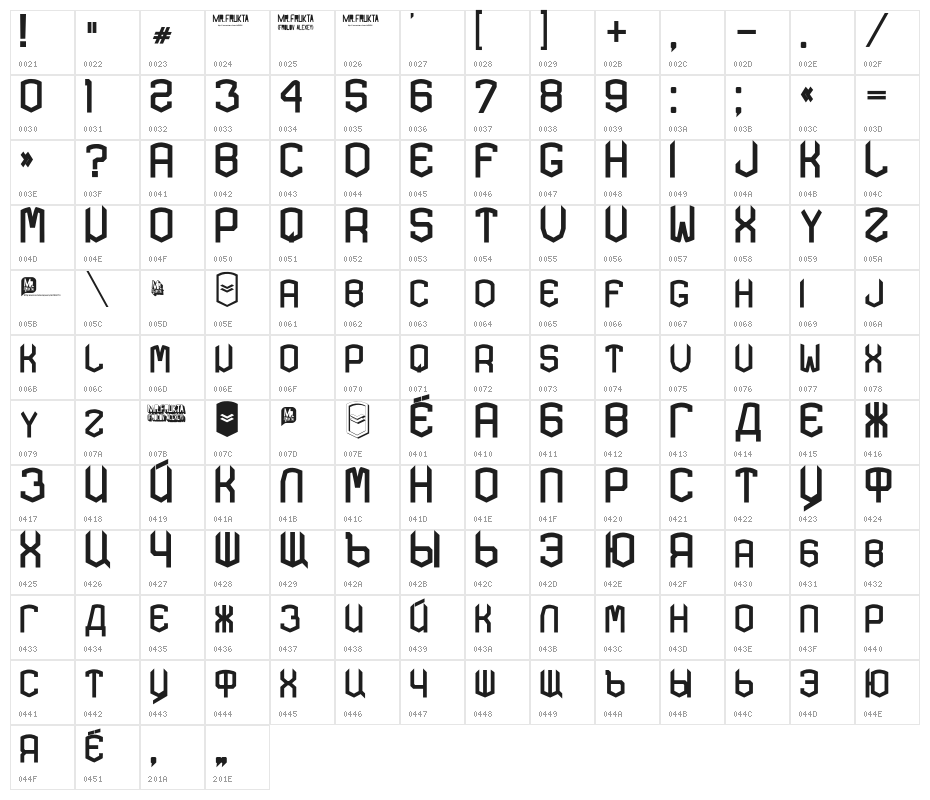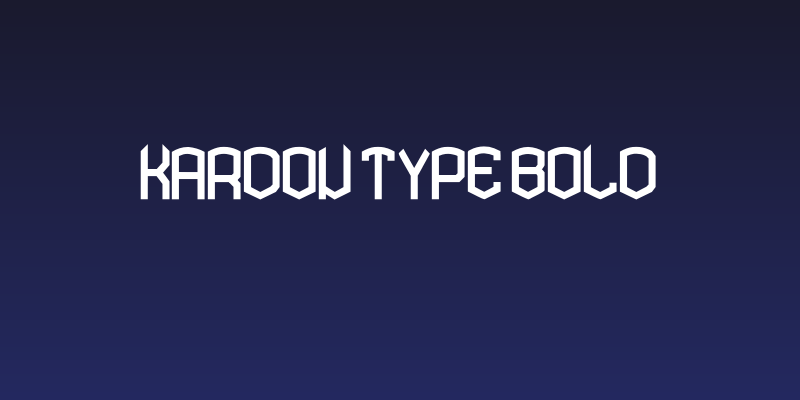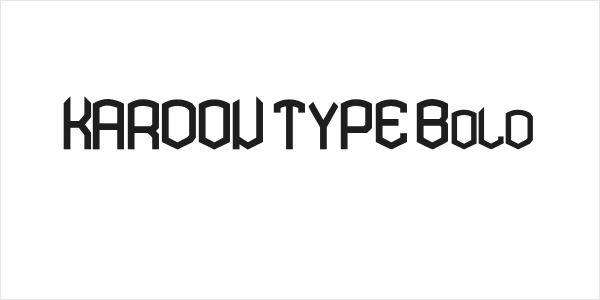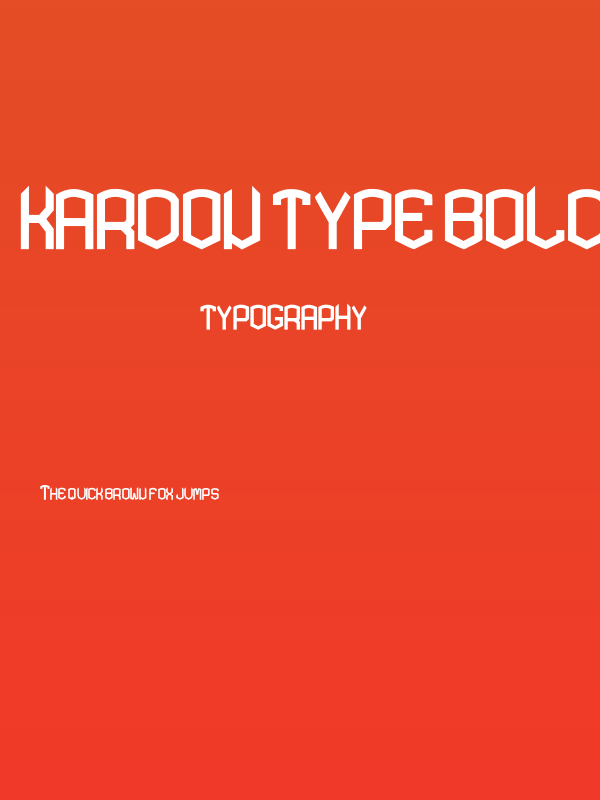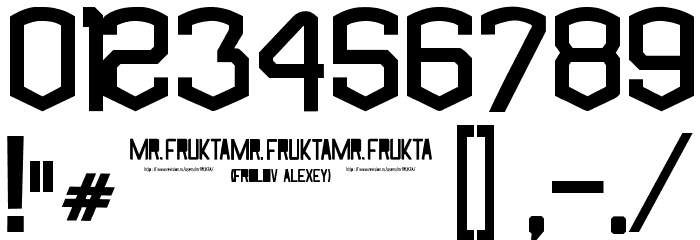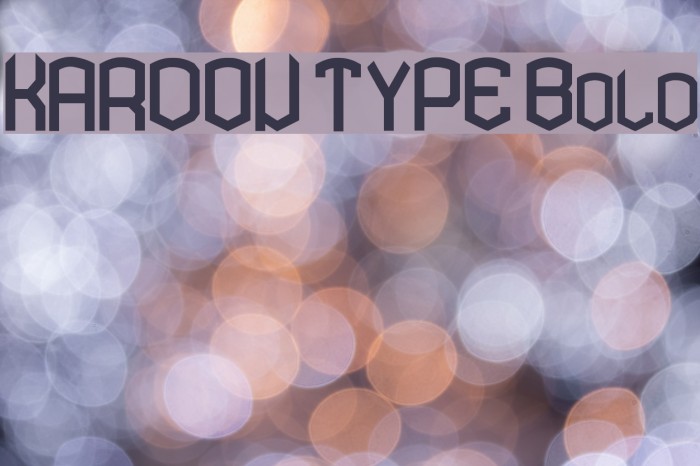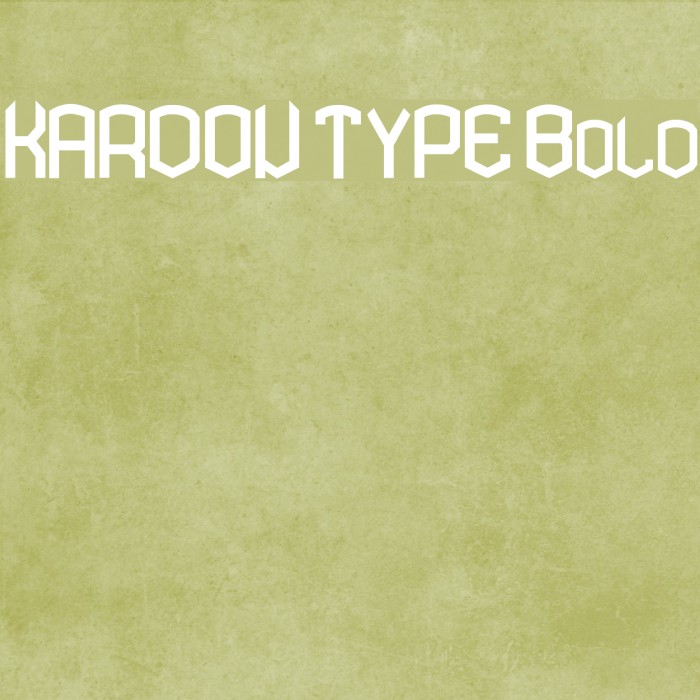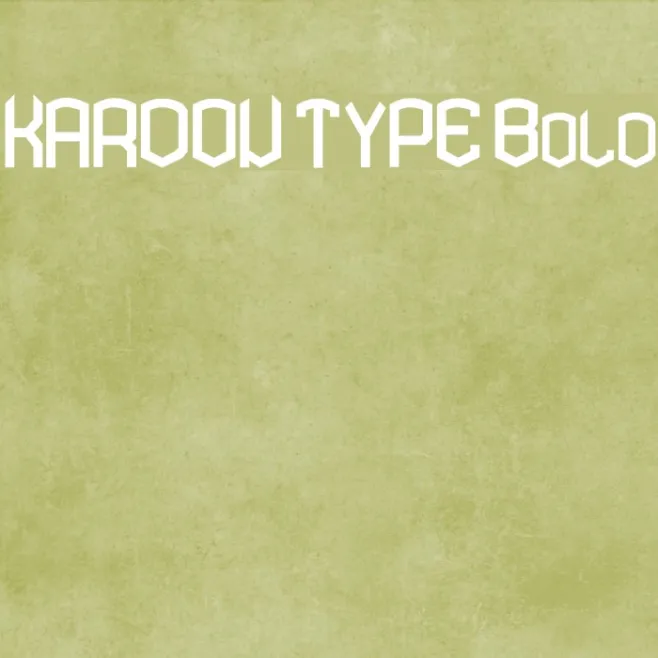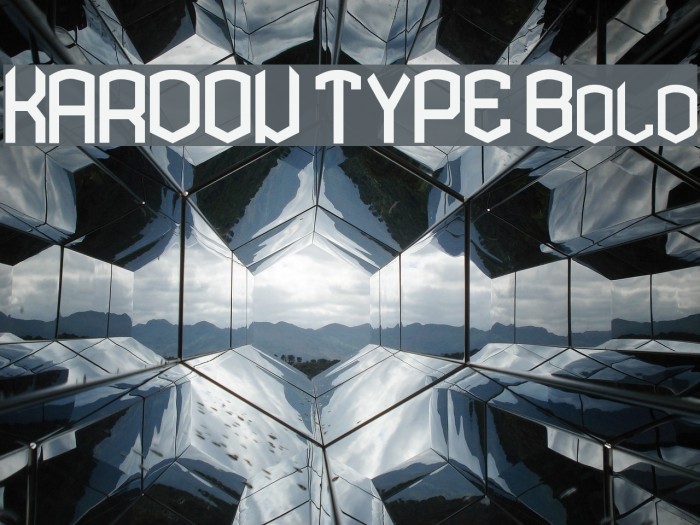
KARDON TYPE Bold Font
KARDON TYPE Bold Description
This font features a bold, geometric style with sharp angles and a strong presence. The uppercase letters are uniform in height, creating a cohesive and structured appearance. The characters are designed with a modern, industrial aesthetic, making them suitable for impactful and attention-grabbing designs. The numbers and special characters maintain the same bold and angular style, ensuring consistency across all elements. This font is ideal for projects that require a strong visual statement.
| Proposed Projects | Ideal for branding, posters, headlines, and any design requiring a bold statement. |